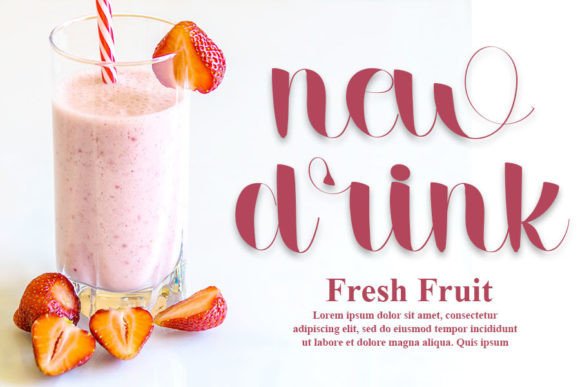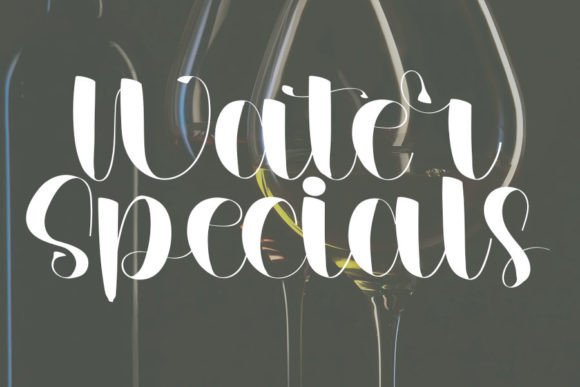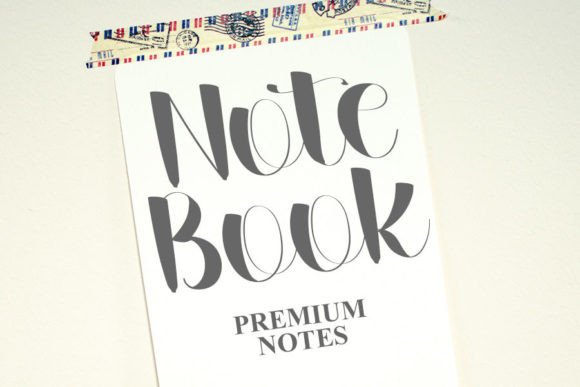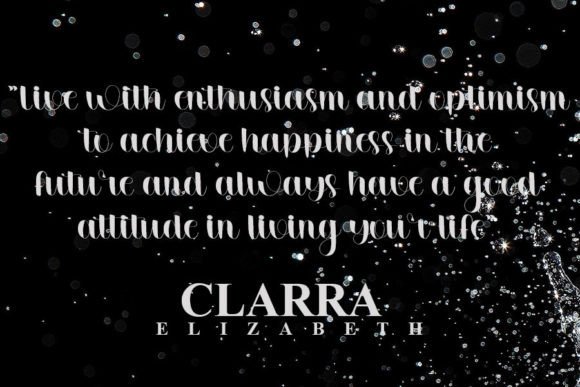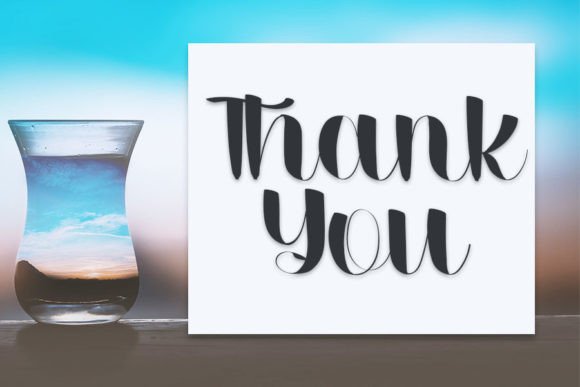
Introducing Drink Font: Elevate Your Designs with Elegance and Class
In the world of typography, fonts play a crucial role in conveying the tone and personality of a design project. For designers and crafters seeking to add a touch of sophistication and elegance to their work, the Drink Font is an excellent choice. This trendy handwritten font boasts a contemporary atmosphere and impeccable form, drawing inspiration from timeless classic calligraphy.
The Inspiration Behind Drink Font
The Drink Font is a masterful blend of traditional calligraphy and modern design sensibilities. Its creators sought to capture the essence of classic calligraphy, refining and adapting it to suit the needs of contemporary designers. The result is a font that exudes refinement, poise, and a deep sense of elegance.
Key Features of Drink Font
- Trendy and Handwritten: Drink Font features a handwritten style that feels both modern and approachable. Its trendy vibe makes it perfect for designers looking to create fresh and engaging content.
- Contemporary Atmosphere: The font’s clean lines and balanced proportions give it a contemporary feel that fits well with current design trends.
- Impeccable Form: Each letterform in the Drink Font has been carefully crafted to ensure clarity, readability, and aesthetic appeal.
- Inspired by Timeless Classic Calligraphy: The font’s roots in traditional calligraphy lend it an air of sophistication and timelessness, making it suitable for projects where elegance is paramount.
Use Cases for Drink Font
The versatility of the Drink Font makes it an excellent addition to a wide range of design projects. Here are some use cases where Drink Font truly shines:
- Branding and Logos: The elegant and modern feel of Drink Font makes it an excellent choice for branding and logo design, particularly for businesses in the luxury, fashion, and lifestyle sectors.
- Wedding and Event Stationery: For designers creating wedding invitations, save-the-date cards, and other event stationery, Drink Font adds a touch of romance and sophistication.
- Packaging Design: Whether you’re designing labels for gourmet food products, cosmetics, or high-end beverages, Drink Font can help convey a sense of luxury and quality.
- Digital Media: From social media graphics to blog headers, Drink Font can elevate the visual appeal of your digital content, making it more engaging and professional.
Why Choose Drink Font?
With so many fonts available to designers today, what sets Drink Font apart? Here are a few reasons why designers and crafters might choose Drink Font for their projects:
- Unique yet Legible: Drink Font offers a unique style that stands out from more common fonts, yet remains highly legible across various sizes and applications.
For designers and crafters looking to infuse their projects with elegance, class, and a modern twist, Drink Font is an exceptional choice. Its inspiration from timeless classic calligraphy, combined with its contemporary atmosphere and impeccable form, makes it a versatile and stylish addition to any design toolkit. Whether you’re working on branding, stationery, packaging, or digital media, Drink Font can help elevate your designs to new heights of sophistication and visual appeal.